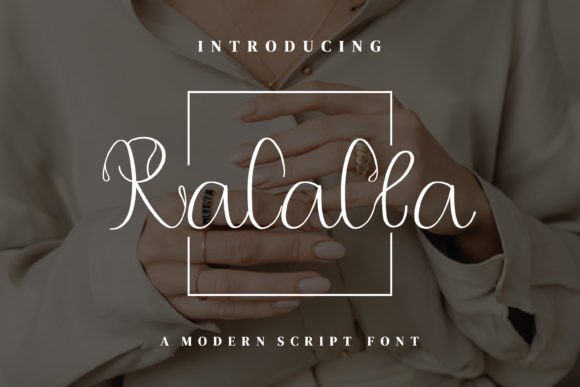
Introducing Ralalla Font: A Cursive Handwritten Masterpiece to Elevate Your Designs
Embark on a typographic journey with Ralalla Font, a captivating script font family that exudes elegance, charm, and a touch of playfulness. Step into a world of creative possibilities as Ralalla transforms your words into beautiful works of art.
With its delicate strokes and graceful curves, Ralalla Font adds a touch of magic to your designs. Whether crafting wedding invitations, creating stunning logos, or designing eye-catching social media posts, Ralalla Font is your perfect companion.
Immerse yourself in the world of Ralalla's versatility. As a script font, it seamlessly blends with various design styles, from classic to modern, vintage to contemporary. Its timeless beauty complements any project, adding a personal and heartfelt touch.
Unleash your creativity and let Ralalla Font take center stage. Create captivating titles that dance across the page, leaving a lasting impression on your audience. With Ralalla, ordinary text transforms into enchanting expressions, capturing hearts and minds.
Tap into the power of Ralalla Font and elevate your designs to new heights. Its gentle, flowing lines evoke a sense of joy and romance, adding a touch of whimsy to your work.